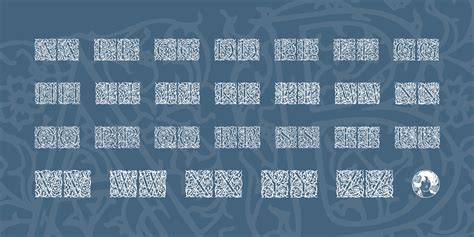
Arabesque is a term that often sparks curiosity, especially among those interested in typography and design. The question "Is Arabesque a font?" is a common one, and the answer is not as straightforward as it might seem. This blog post will delve into the intricacies of Arabesque, exploring its origins, characteristics, and its relationship with typography.
Understanding Arabesque
Arabesque is an intricate and ornate design style that originated in the Islamic world. It is characterized by its use of flowing, interlacing patterns that often incorporate floral and geometric motifs. These designs are not merely decorative; they serve a deeper purpose in Islamic art and architecture, symbolizing the infinite nature of the divine. The term "Arabesque" itself is derived from the Italian word "arabesco," which refers to the intricate patterns found in Arabic art.
Arabesque in Typography
When discussing whether Arabesque is a font, it's important to understand the distinction between the design style and its application in typography. Arabesque patterns are often used as decorative elements in various forms of art, including calligraphy and typography. However, Arabesque is not a specific font family. Instead, it is a style that can influence the design of fonts.
Fonts inspired by Arabesque often feature intricate, flowing lines and decorative elements that mimic the patterns found in traditional Arabesque art. These fonts are typically used in contexts where an ornate, elegant, and culturally rich aesthetic is desired. Examples of such fonts include those that incorporate calligraphic elements, floral motifs, and geometric patterns.
Characteristics of Arabesque-Inspired Fonts
Arabesque-inspired fonts share several key characteristics that set them apart from other typographic styles:
- Intricate Designs: These fonts often feature highly detailed and intricate designs, with flowing lines and complex patterns.
- Calligraphic Elements: Many Arabesque-inspired fonts incorporate calligraphic elements, reflecting the influence of traditional Islamic calligraphy.
- Floral and Geometric Motifs: These fonts often include floral and geometric motifs, which are common in Arabesque art.
- Elegant and Ornate: The overall aesthetic of these fonts is elegant and ornate, making them suitable for formal and decorative purposes.
Examples of Arabesque-Inspired Fonts
While Arabesque is not a specific font, there are several fonts that embody the spirit of Arabesque design. Some notable examples include:
| Font Name | Characteristics |
|---|---|
| Diwani | Features intricate, flowing lines and calligraphic elements, often used in Islamic calligraphy. |
| Kufi | Known for its geometric and angular design, reflecting the geometric patterns found in Arabesque art. |
| Thuluth | Characterized by its elegant, elongated letters and flowing lines, often used in decorative contexts. |
These fonts are just a few examples of how the Arabesque style can be incorporated into typography. Each font brings a unique interpretation of the Arabesque aesthetic, making them suitable for a variety of design projects.
📝 Note: When using Arabesque-inspired fonts, it's important to consider the cultural significance of the design. These fonts often carry deep cultural and religious meanings, so it's essential to use them respectfully and appropriately.
Applications of Arabesque-Inspired Fonts
Arabesque-inspired fonts are versatile and can be used in a wide range of applications. Some common uses include:
- Wedding Invitations: The elegant and ornate nature of these fonts makes them perfect for wedding invitations and other formal events.
- Book Covers: For books with a cultural or historical theme, Arabesque-inspired fonts can add an authentic and visually appealing touch.
- Logo Design: These fonts can be used to create unique and memorable logos, especially for businesses that want to convey a sense of elegance and cultural richness.
- Decorative Text: In graphic design projects, Arabesque-inspired fonts can be used to create decorative text elements that add visual interest and depth.
When using Arabesque-inspired fonts, it's important to consider the overall design context. These fonts are best used in moderation, as their intricate designs can be overwhelming if overused. Pairing them with simpler, more straightforward fonts can help create a balanced and harmonious design.
Arabesque in Modern Design
While Arabesque has its roots in traditional Islamic art, its influence can be seen in modern design as well. Contemporary designers often draw inspiration from Arabesque patterns, incorporating them into various design elements, including typography, graphic design, and architecture. The timeless appeal of Arabesque lies in its ability to blend tradition with modernity, creating designs that are both culturally rich and visually stunning.